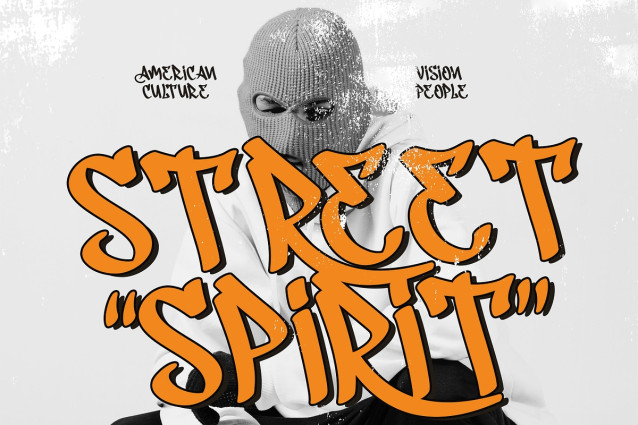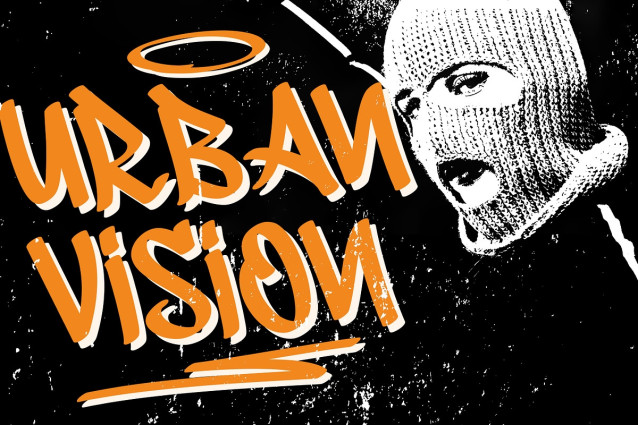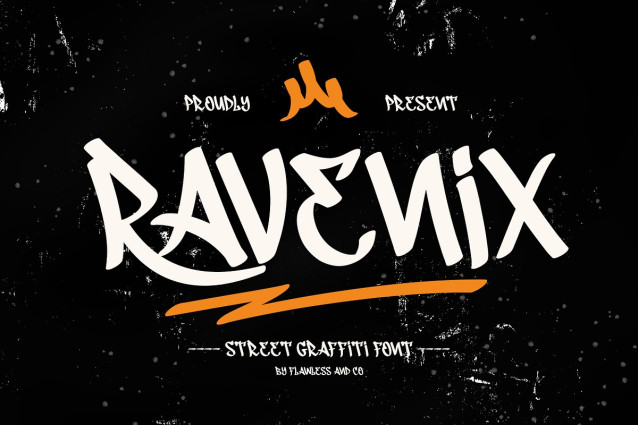
Ravenix – Urban Graffiti Font
Ravenix – Urban Graffiti Display Font
Ravenix is a bold urban graffiti brush display typeface that brings together raw street energy, expressive brush strokes, and a dynamic handcrafted character. Its edgy letterforms create a strong visual impact, making it perfect for designs that need a rebellious and contemporary street-inspired feel.